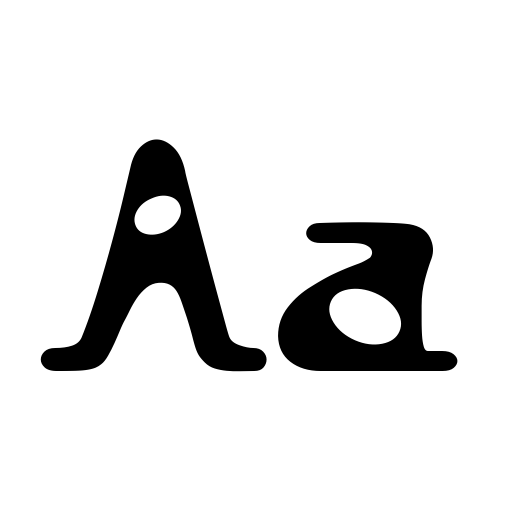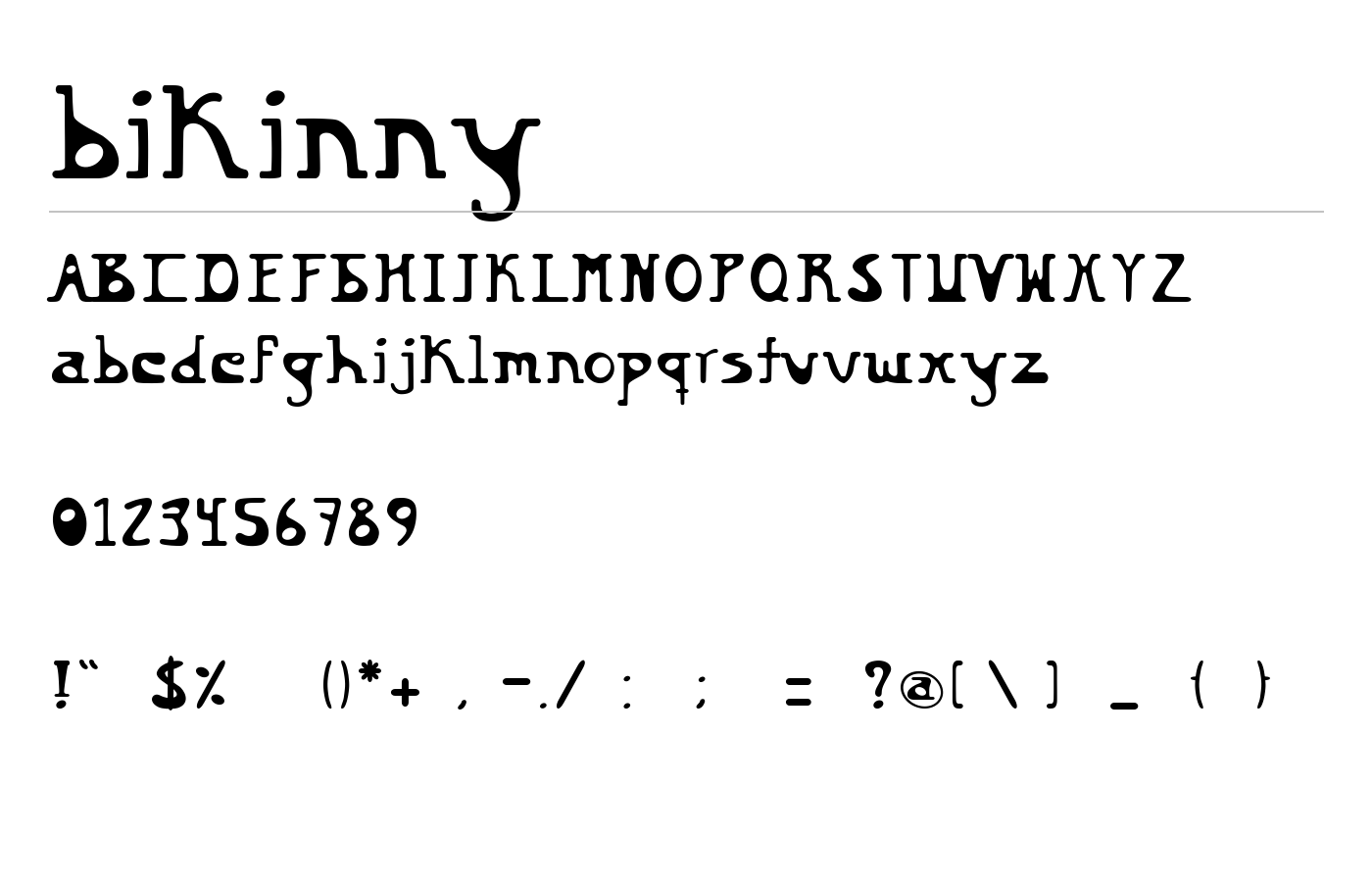
Bikinny is a quirky serif font with a playful, hand-crafted feel, featuring irregular shapes and distinctively thick and thin strokes that create a charming vintage vibe. Its unique letterforms and slightly condensed width make it ideal for creative projects looking to convey personality and whimsy, such as logos, posters, and informal editorial designs. This font works best where a touch of individuality and artistic flair is desired, bringing warmth and character to headlines and display text.
bikinny Font
About bikinny Font